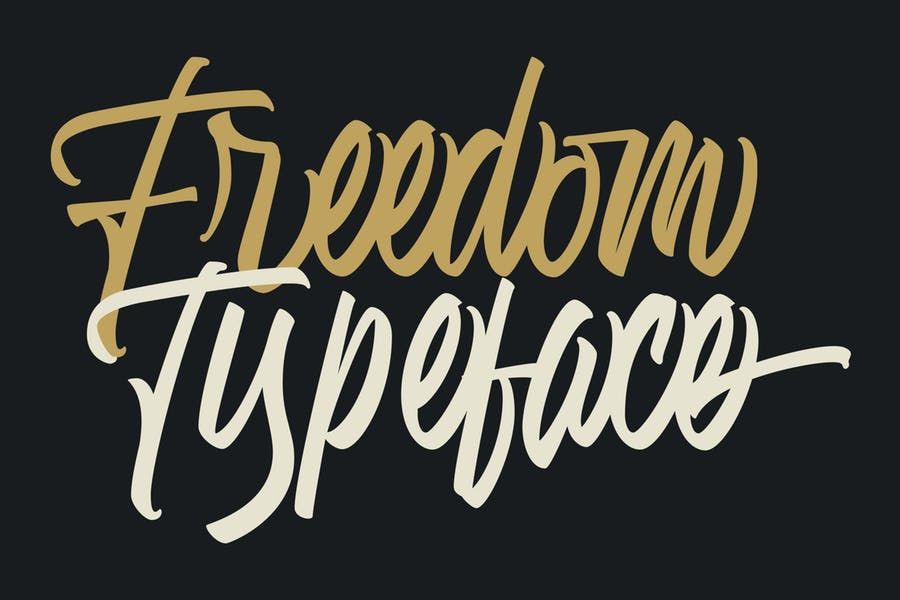
Freedom Typeface Font
This bold expressive typeface is perfect for patriotic campaigns, independence day materials, political messaging, activist organizations, freedom-themed merchandise, national holiday graphics, protest signage, and empowering social movement communications.
What makes this font exciting is its powerful combination of strength and liberation that perfectly captures the spirit of freedom and democratic ideals through confident letterforms and bold character construction. The robust design conveys determination and resilience, while the open, expansive proportions symbolize the unlimited possibilities that come with true freedom and self-determination.
The Freedom Typeface Font family includes regular, bold, and condensed weights, along with patriotic symbols, stars, and liberty-inspired ornaments that enhance the font's empowering message for comprehensive freedom-themed design applications.
Freedom Typeface Font Free Download offers designers an exceptional tool for creating impactful communications that celebrate liberty, democracy, and human rights. This powerfully designed typeface brings the strength of conviction to advocacy and patriotic messaging, making it ideal for civil rights organizations, veteran support groups, political campaigns, and social justice movements seeking to communicate courage, independence, and unwavering commitment to freedom.
The inspiring personality of Freedom Typeface Font emerges through its uncompromising boldness and confident stance that reflects the courage required to fight for liberty and justice. Each letterform displays the strength and determination found in historic freedom movements, creating visual impact that motivates action and inspires hope. This empowering approach makes it particularly suitable for memorial monuments, independence celebrations, democratic institutions, and human rights campaigns requiring typography that communicates bravery, sacrifice, and the eternal struggle for freedom.
Contemporary designers will appreciate this font's ability to establish immediate emotional connection with audiences who value liberty and democratic principles. From voting awareness campaigns to military appreciation events, from constitutional celebration materials to freedom festival signage, Freedom Typeface Font maintains its powerful character while adapting to diverse patriotic applications. The font's comprehensive character set includes national symbols, democratic icons, and liberty-themed decorative elements that enhance freedom messaging, ensuring complete design flexibility for organizations dedicated to preserving liberty, promoting democracy, and celebrating the fundamental human right to freedom across all patriotic and social justice communications.